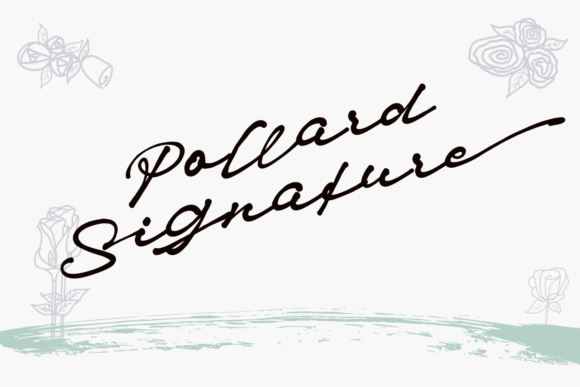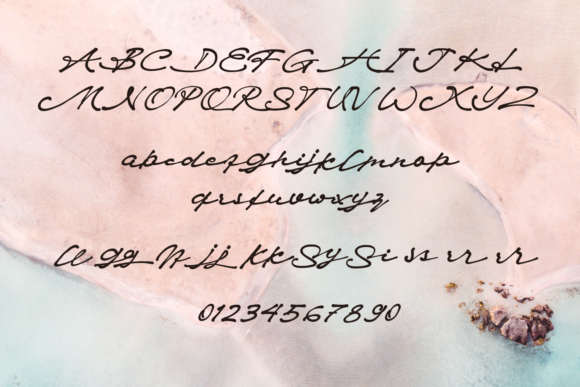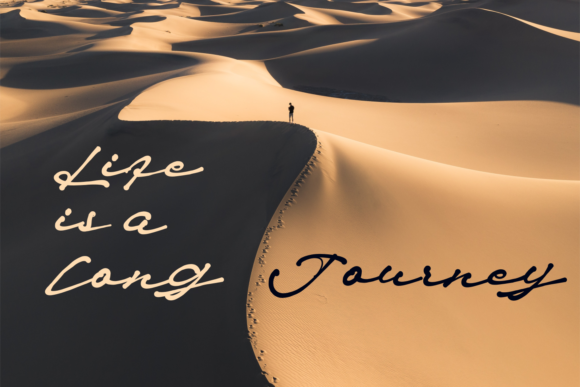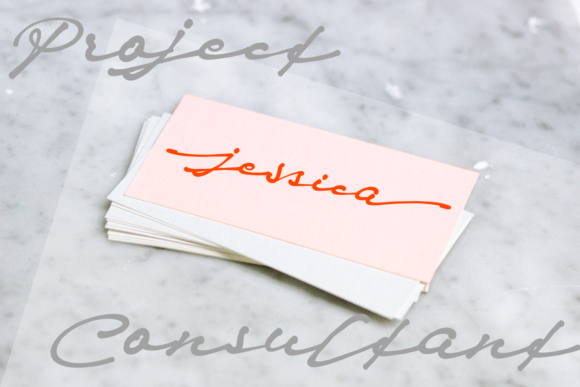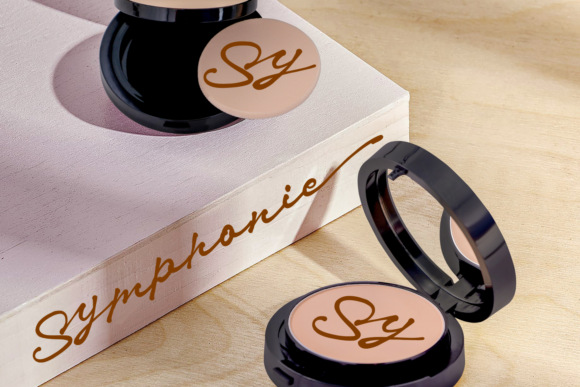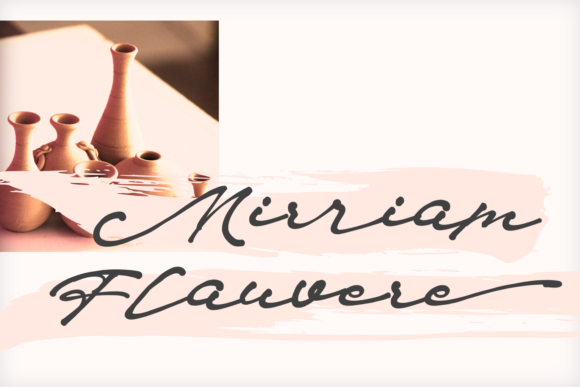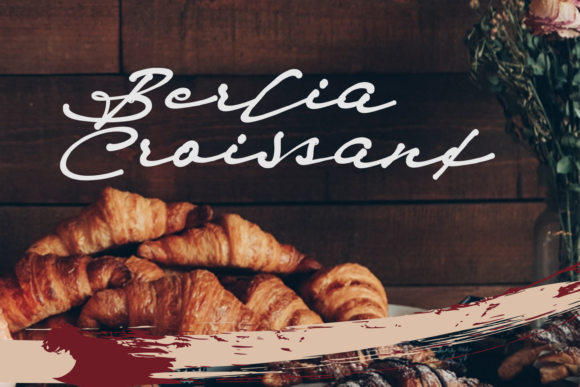
Pollard Font
About Pollard Font
Pollard is a gorgeously crafted script that radiates authenticity. Fall in love with this stunning signature font, and use if for a wide variety of designs, ranging from headlines and logotype to greeting cards and posters!